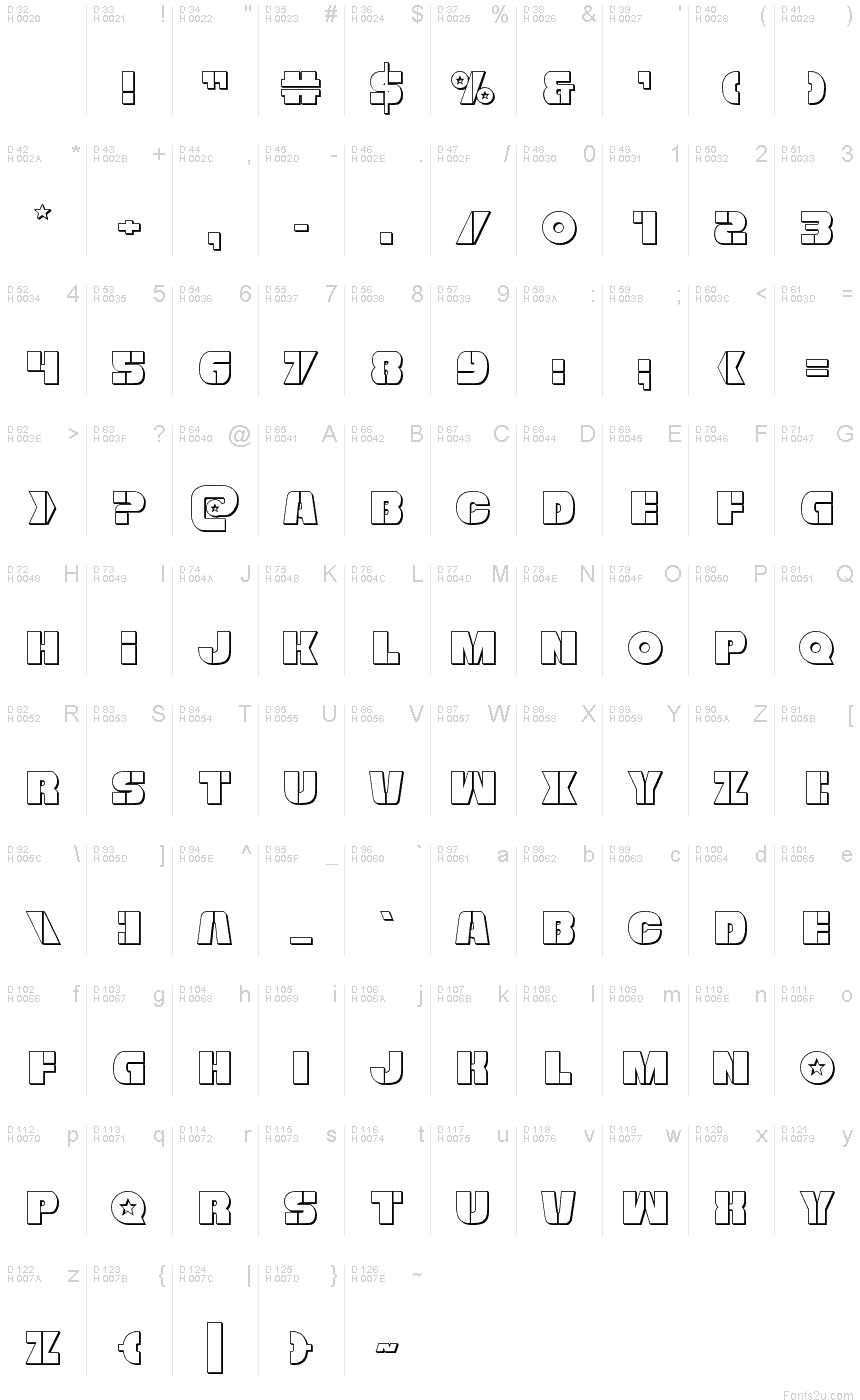
Freedom Fighter 3D from Iconian Fonts is a free futuristic 3D display font with broad outlined capitals and a deep offset extrusion. Its letters combine tall vertical walls, squared-off sections, and sweeping rounded curves in a style that recalls arcade cabinets and action-film title art. Clipped corners, tight joins, and occasional interior accents keep the oversized forms busy without softening their solid, mechanical silhouette.
Game and youth-entertainment designers will find it suited to posters and merchandise. For comic covers and magazine features, the dimensional edges let the lettering become part of an illustration in stories about competition, machines, or adventure.
Freedom Fighter is a stencil font. Each font version includes a complete Latin character set, including the euro sign, and alternate letter styles in uppercase and lowercase that can be mixed and matched.
Freedom Fighter 3D